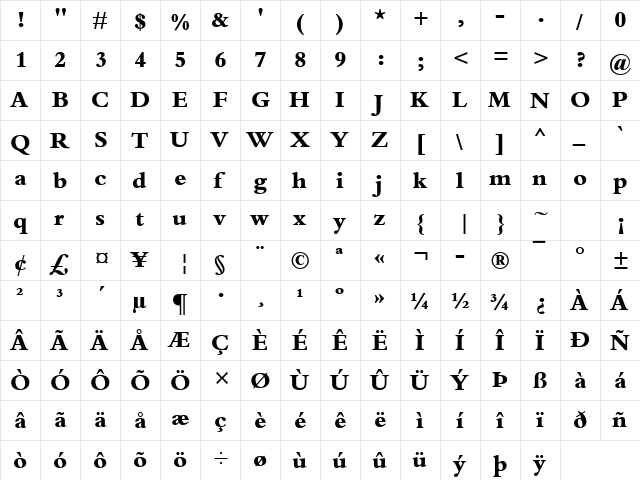
Bembo Extra Bold Regular
Design Context for Bembo Extra Bold Typeface
Bembo Extra Bold offers clean, dependable letterforms without strong stylistic allegiance, making it a practical choice for designers who need flexibility. The heavy weight commands attention and anchors typographic hierarchies.
Pro Tip: Use Bembo Extra Bold in both headline and body roles to test its range before committing to a single application.